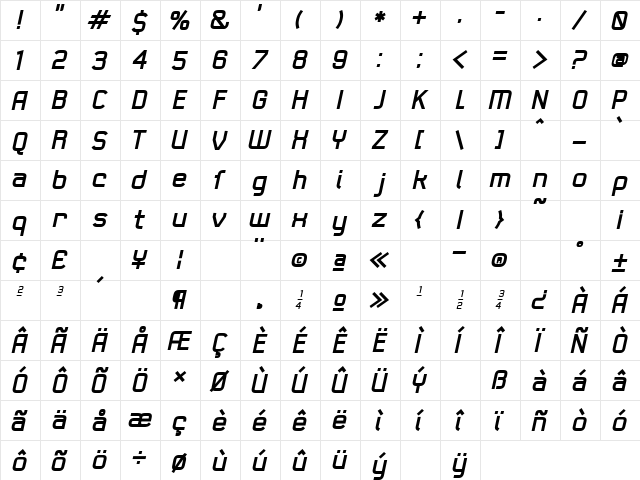
21st BlackItalic
Design Context for 21st Typeface
21st offers clean, dependable letterforms without strong stylistic allegiance, making it a practical choice for designers who need flexibility. The dynamic lean of this cut emphasises speed and emphasis in any layout.
Pro Tip: Use 21st for emphasis, pull quotes, and subheadings where its slanted energy can add rhythm to the layout.